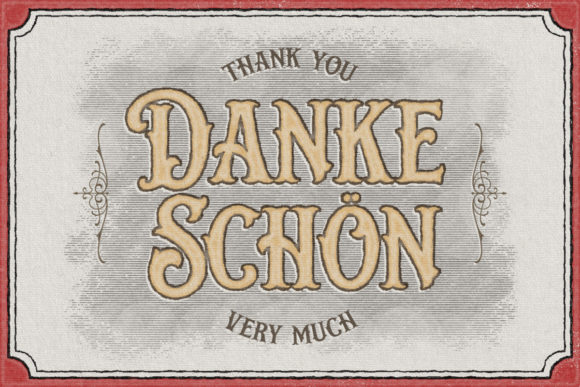
Bistern Font
Bistern is a victorian styled, old fashioned display font. It works incredibly well on posters, labels and branding. Add it confidently to your favorite creations and let yourself be amazed by the outcome generated.